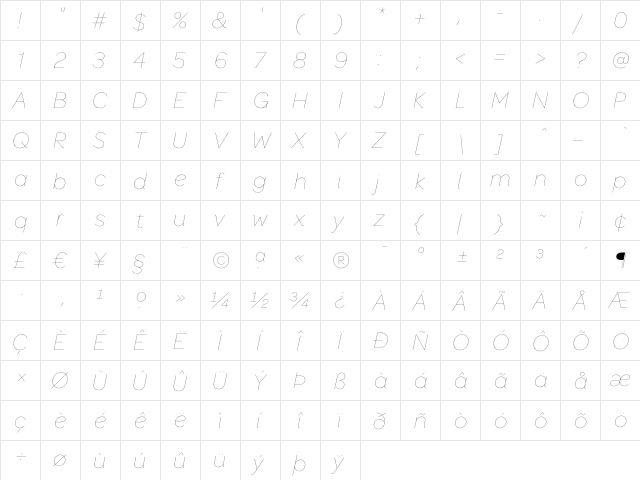
Omnes Hairline Italic Font Preview
Omnes Hairline Italic
Design Context for Omnes Typeface
Omnes is a composed and adaptable typeface that performs quietly and consistently across a wide range of design contexts. The slanted form adds forward momentum and visual energy. The delicate stroke weight brings airiness and refinement to layouts.
Pro Tip: Use Omnes for emphasis, pull quotes, and subheadings where its slanted energy can add rhythm to the layout.